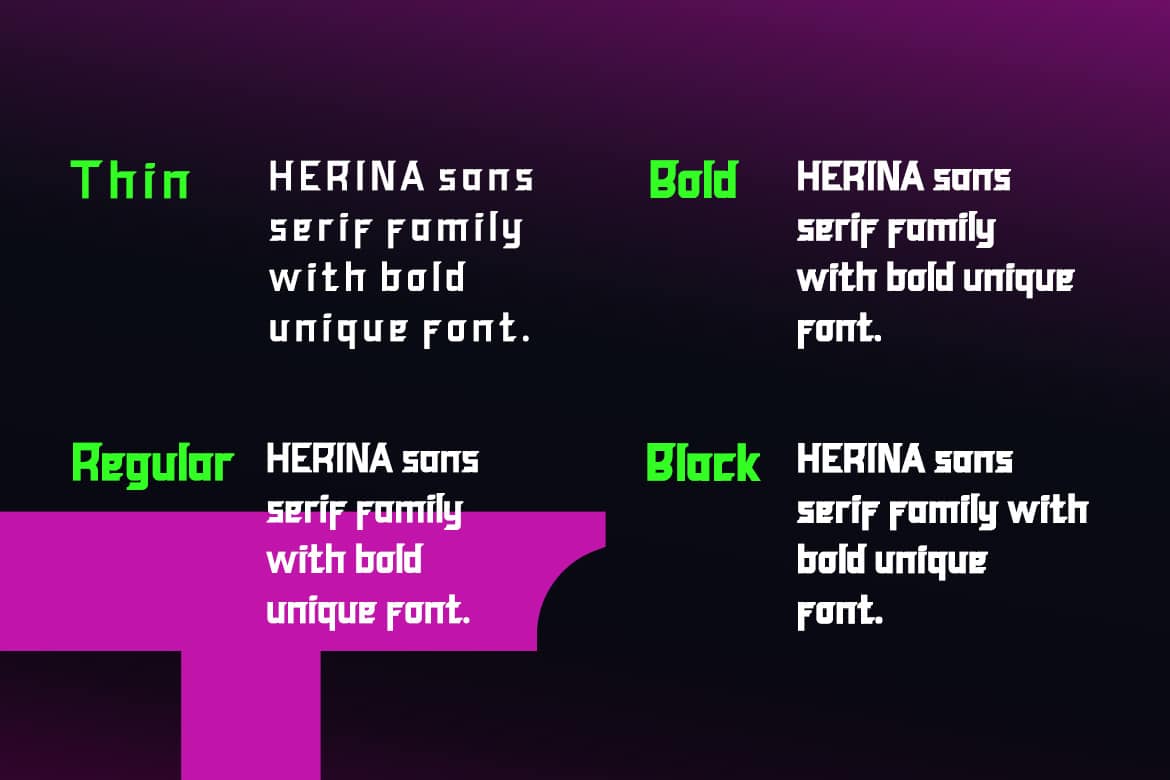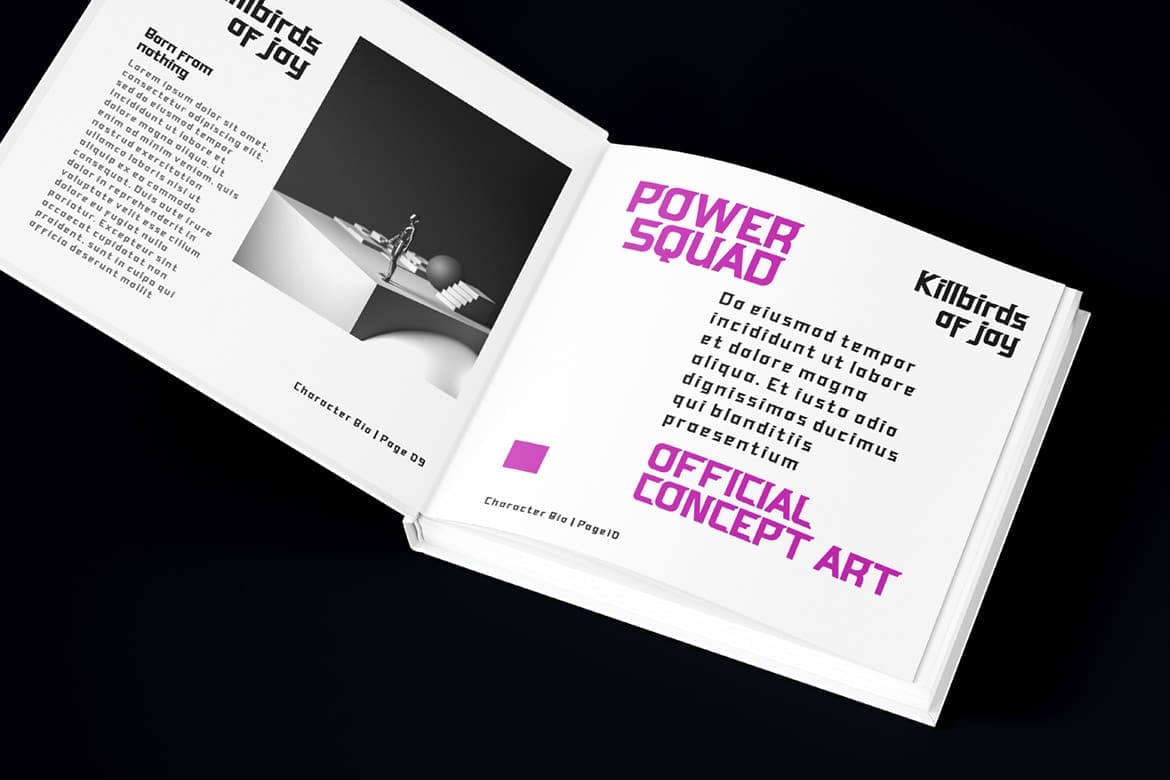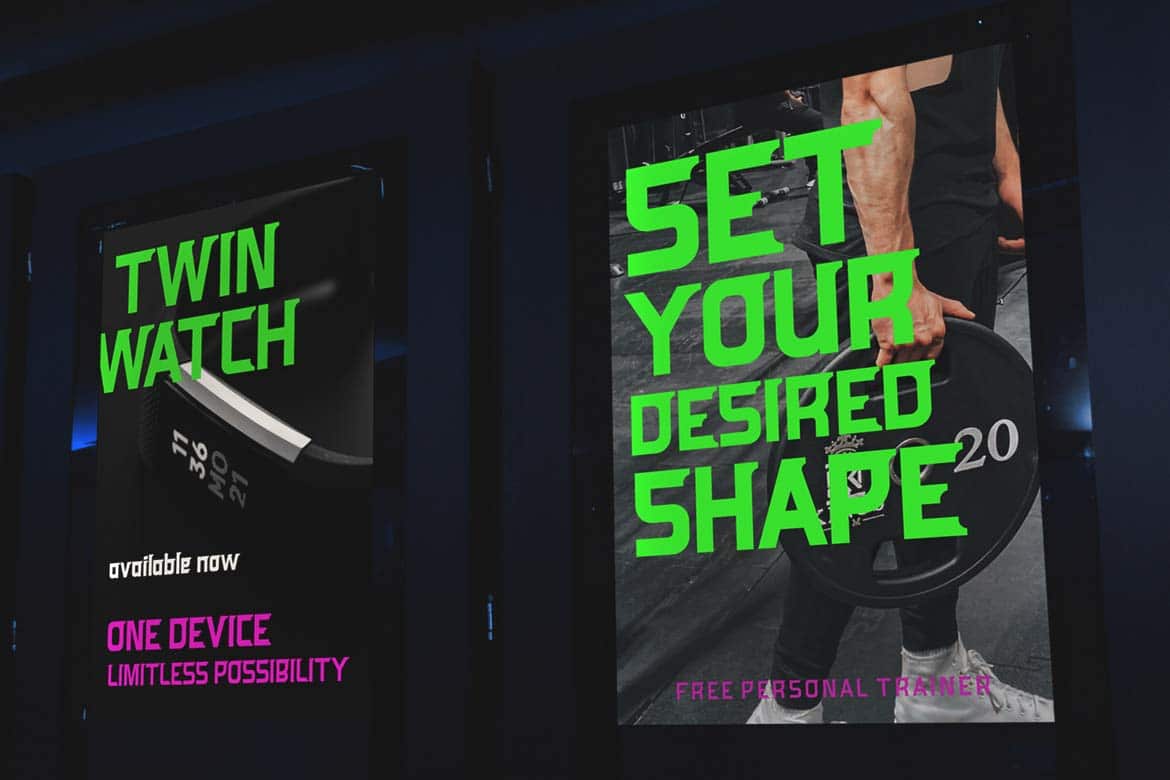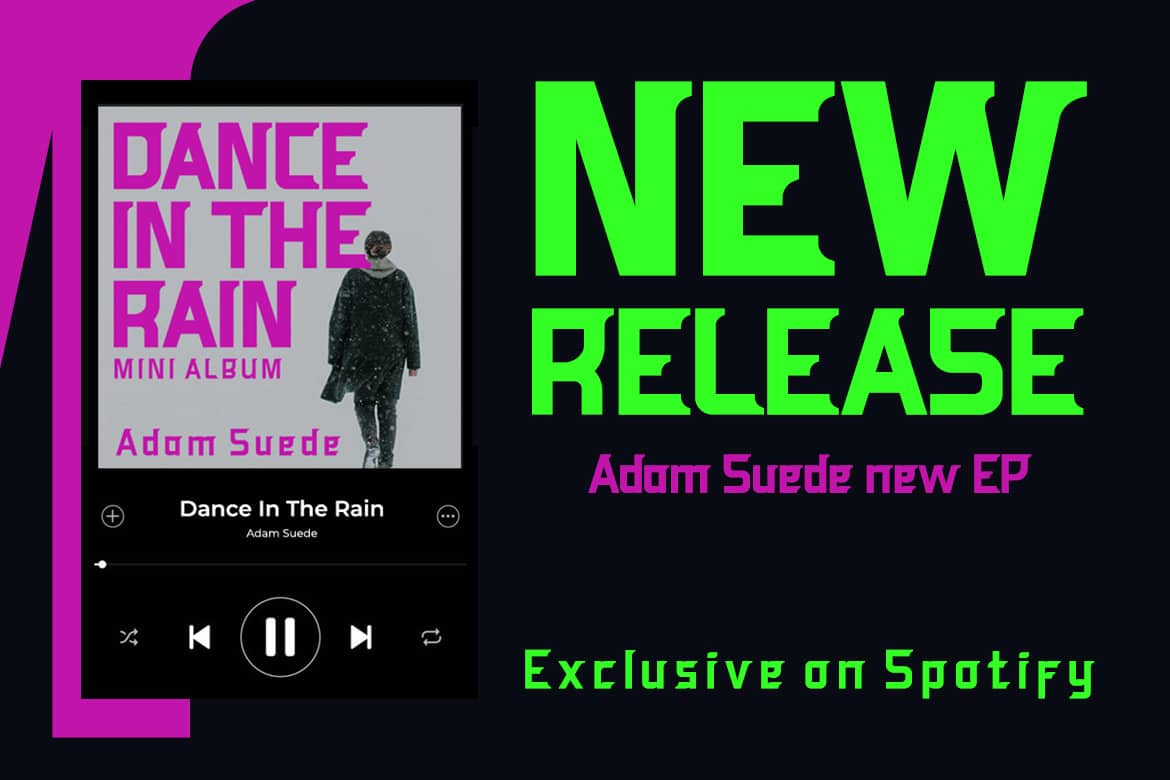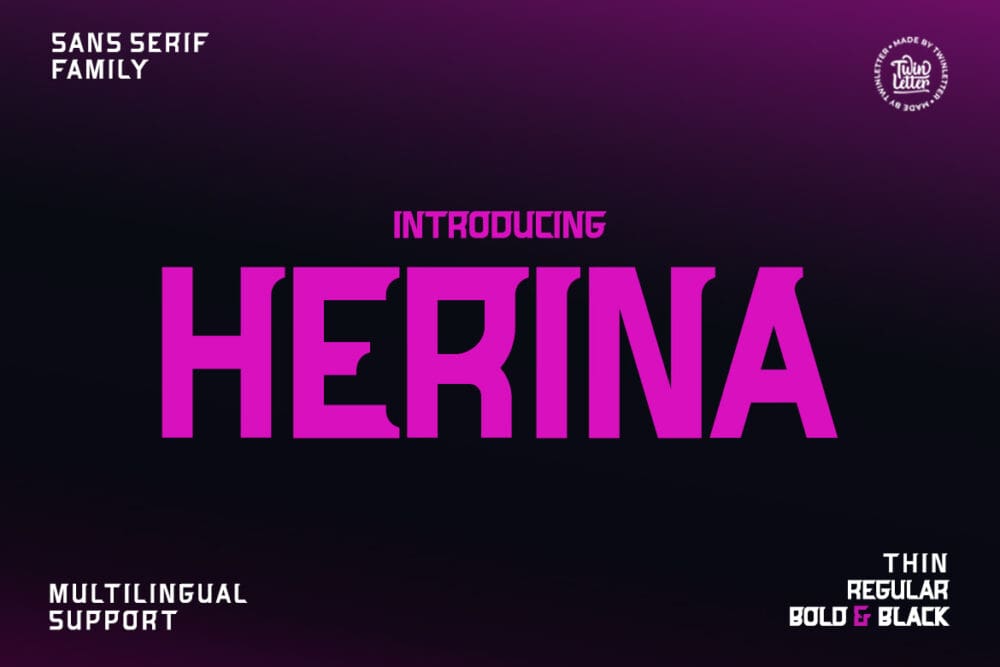
Herina Font
Herina is a new sanserif font with a strong and elegant character. By using this font, your project will have a thick and strong impression, with a strong, beautiful, and appealing appearance that will set your project apart from the competition. Make your promotional materials stand out with this font.